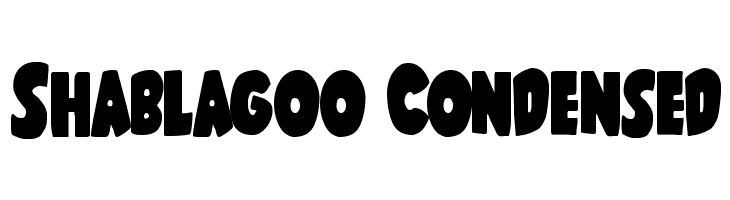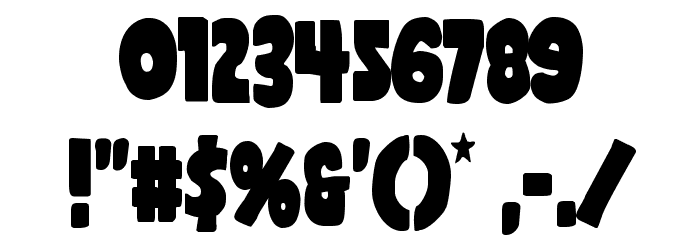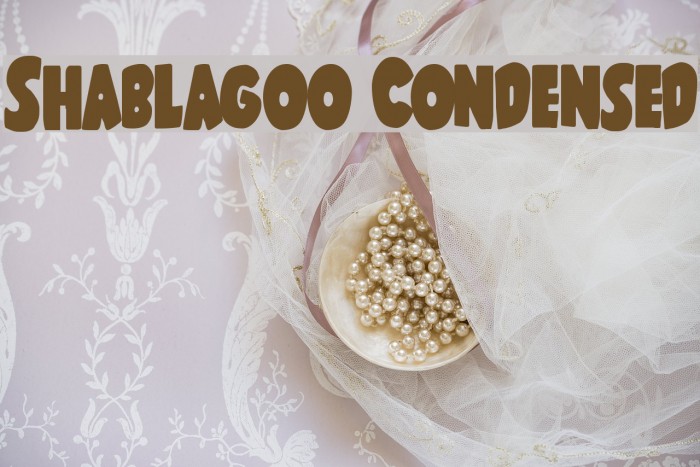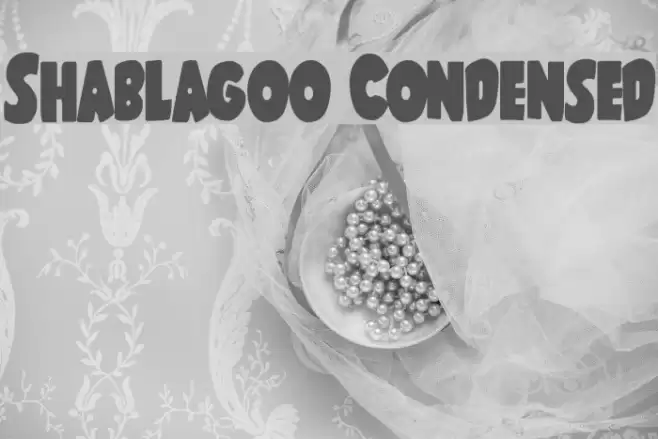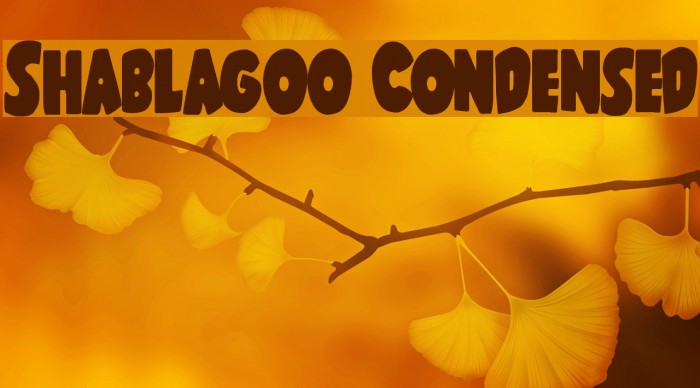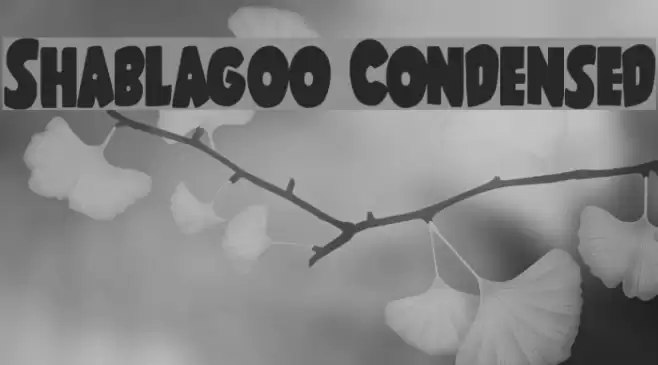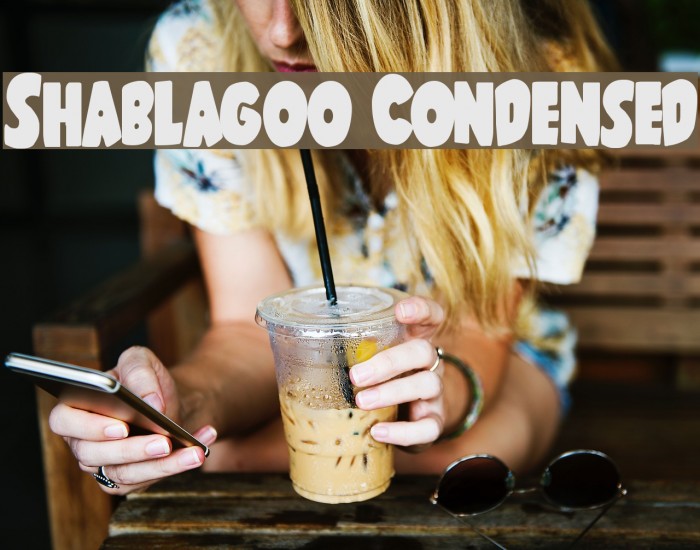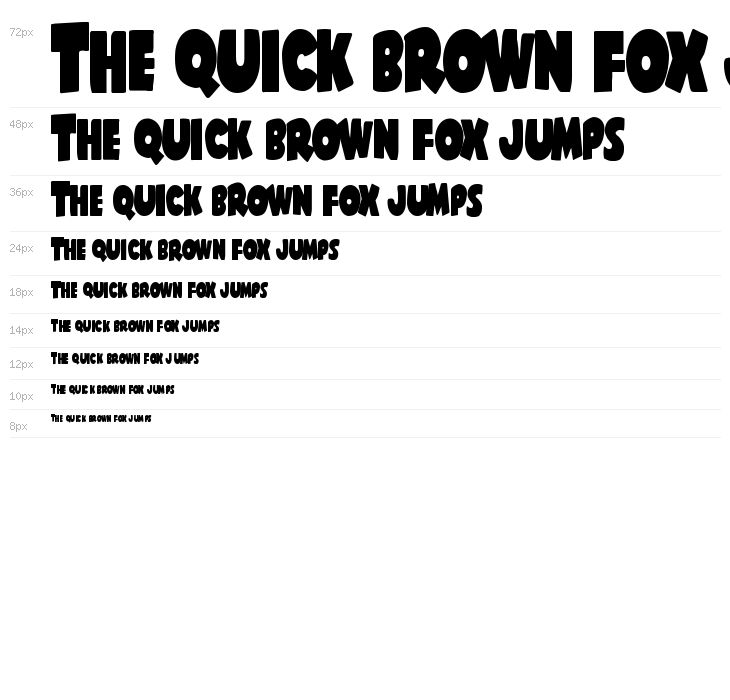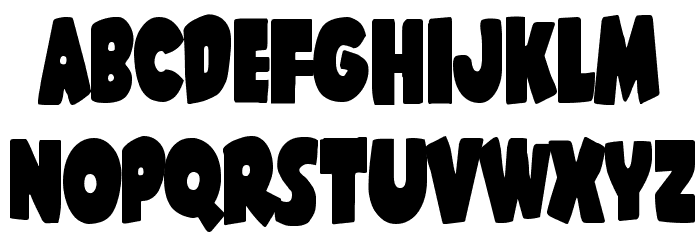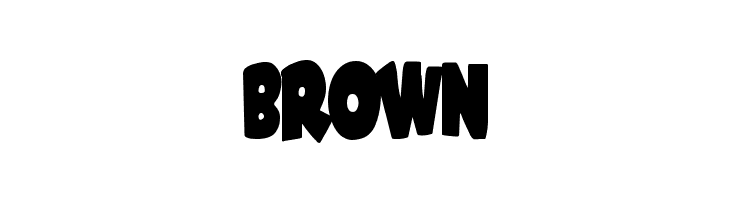
Shablagoo Condensed Font
Shablagoo Condensed Description
This font features a bold and playful style with thick, rounded characters that convey a sense of fun and energy. The letters are tightly spaced, giving a compact and cohesive appearance. The uppercase and lowercase characters maintain a consistent weight, contributing to a uniform look across the alphabet. The numbers and special characters are designed with the same boldness, ensuring they stand out and are easily readable. This font is ideal for projects that require a lively and eye-catching typeface, perfect for grabbing attention and making a statement.
| Proposed Projects | Ideal for children's books, comic strips, posters, and playful branding. |